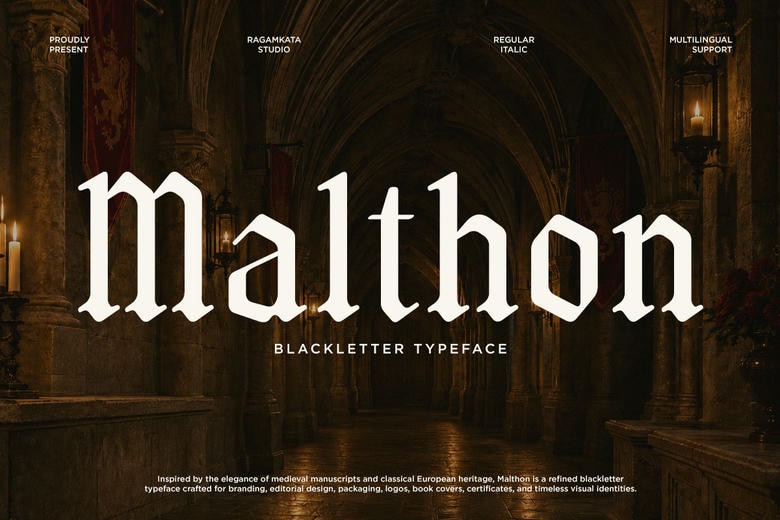
Malthon Font
Malthon is a bold medieval blackletter font inspired by ancient manuscripts, royal insignias, historic buildings, and classic European type. Its sharp, dramatic shapes bring a strong sense of heritage to modern designs.
Malthon stands out and works well for whisky and spirits branding, beer labels, medieval logos, gothic posters, vintage packaging, tattoo designs, apparel, album covers, gaming graphics, fantasy titles, and editorial layouts.
Malthon’s blackletter style blends true historical character with a modern touch. Use it for headlines, logos, badges, labels, posters, and display type when you want a bold, memorable medieval look.
Malthon Medieval Blackletter Font